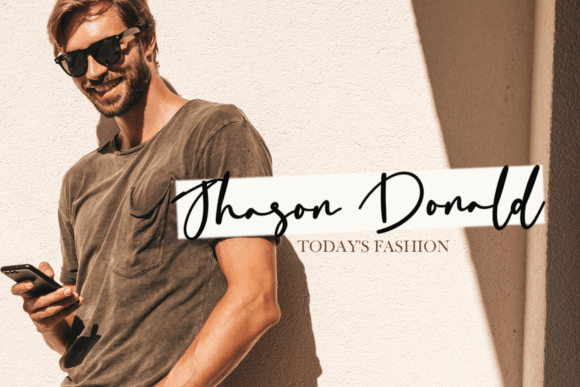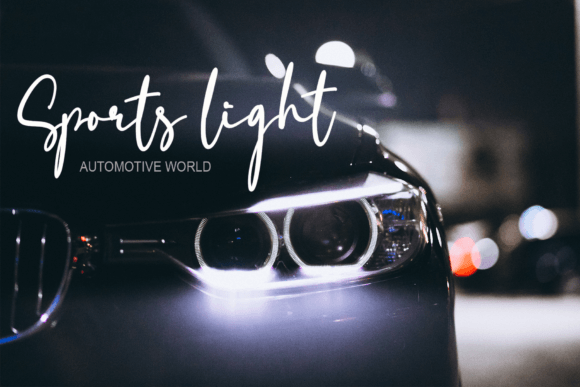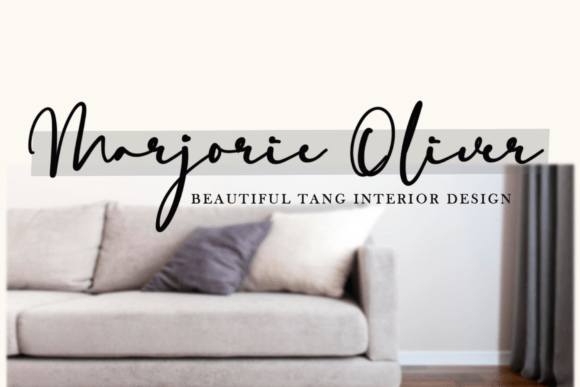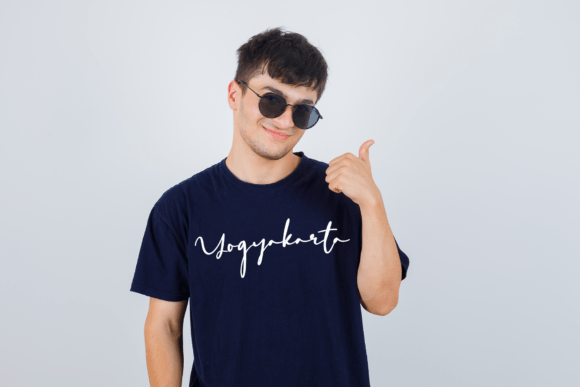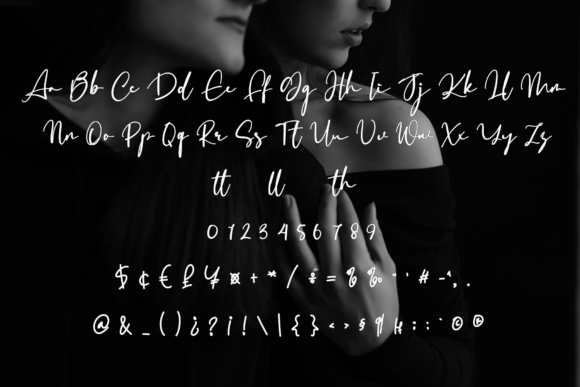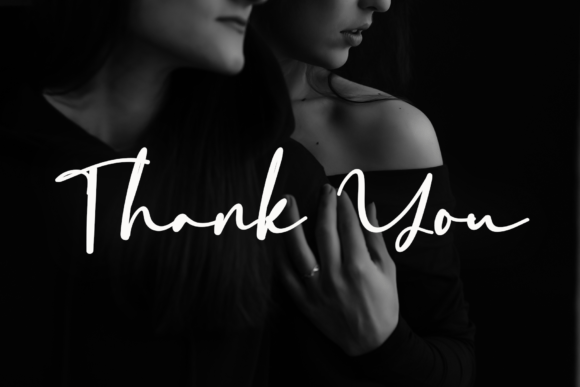
Introduction to Monalisha Font
As a designer, there’s nothing quite like the thrill of bringing a creative project to life. The rush of excitement when the perfect font comes along, elevating your design from good to great. For those moments, we’ve got just the thing – the stunning Monalisha Font.
With its elegant and stylish signature script, Monalisha Font is the perfect addition to any design. Whether you’re working on product packaging, branding projects, magazines, or social media posts, this versatile font is sure to impress. And the best part? It’s available as a high-quality, free download – perfect for designers on a budget or those looking to add some extra flair to their design resource.
What sets Monalisha Font apart is its ability to shine on any background, even with a transparent background, making it a valuable tool for designers looking to add a touch of sophistication to their work. So, why settle for anything less when you can elevate your design with the beautiful Monalisha Font?
Key Features of Monalisha Font
- High-quality design resource ideal for creative projects, offering a unique and elegant aesthetic.
- Features a transparent background, making it easy to integrate into various design elements.
- Includes a comprehensive set of characters, including uppercase and lowercase letters, numbers, and punctuation marks.
- Monalisha Font is a high-quality design resource that can elevate any creative project with its sophisticated and elegant design.
Honest Review: Monalisha Font
As a designer, I’m always on the lookout for high-quality design resources to elevate my creative projects. Recently, I stumbled upon the Monalisha Font, and I’m excited to share my honest review.
What works well: ✨ The Monalisha Font is incredibly versatile, with a unique blend of elegant and modern elements. I appreciate the attention to detail in its design, making it perfect for a wide range of creative projects. The font’s high quality is evident in its crisp, clean lines and subtle texture.
What I like most about the Monalisha Font is its ability to work well with transparent backgrounds, allowing me to add a touch of sophistication to my designs. The font’s versatility makes it an excellent addition to my design resource library.
- Unique blend of elegant and modern elements
Limitations: ⚠️ While the Monalisha Font is a great addition to any design resource library, I do wish it came in more font weights and styles. Additionally, some users may find the font’s unique design to be too bold or overwhelming.
Overall impression: I’m thoroughly impressed with the Monalisha Font, and I highly recommend it to fellow designers looking for a high-quality, free download. Its versatility and attention to detail make it an excellent choice for any creative project.
The Monalisha Font is a versatile font that can be used in a variety of creative projects, such as logo design, brochures, and social media graphics. Its high quality and transparent background make it perfect for use in digital designs. You can also use the font in combination with other design elements to create a unique and eye-catching design.
Tips for Getting the Most Out of Monalisha Font
To get the most out of the Monalisha Font, make sure to use it in conjunction with a transparent background to create a seamless design. You can also experiment with different font sizes and styles to create a unique and creative look. Additionally, consider using the font in combination with other design elements, such as images and graphics, to add depth and interest to your design.